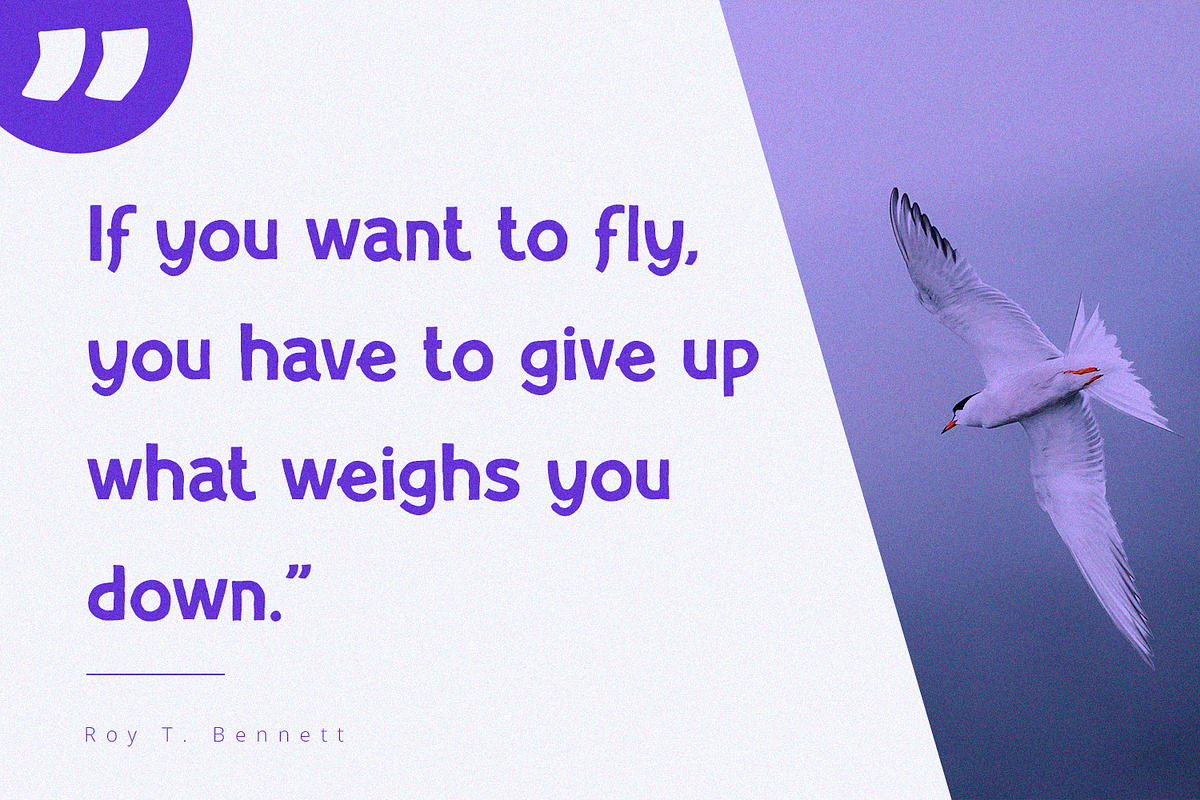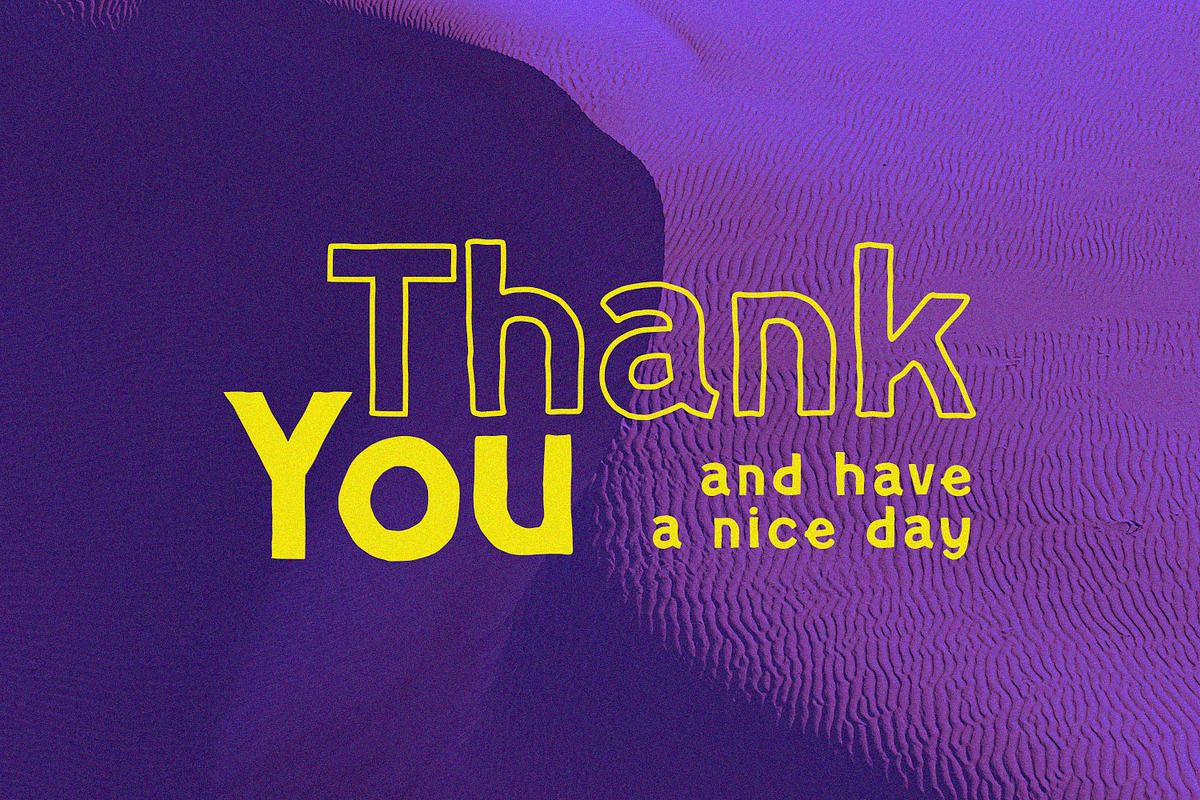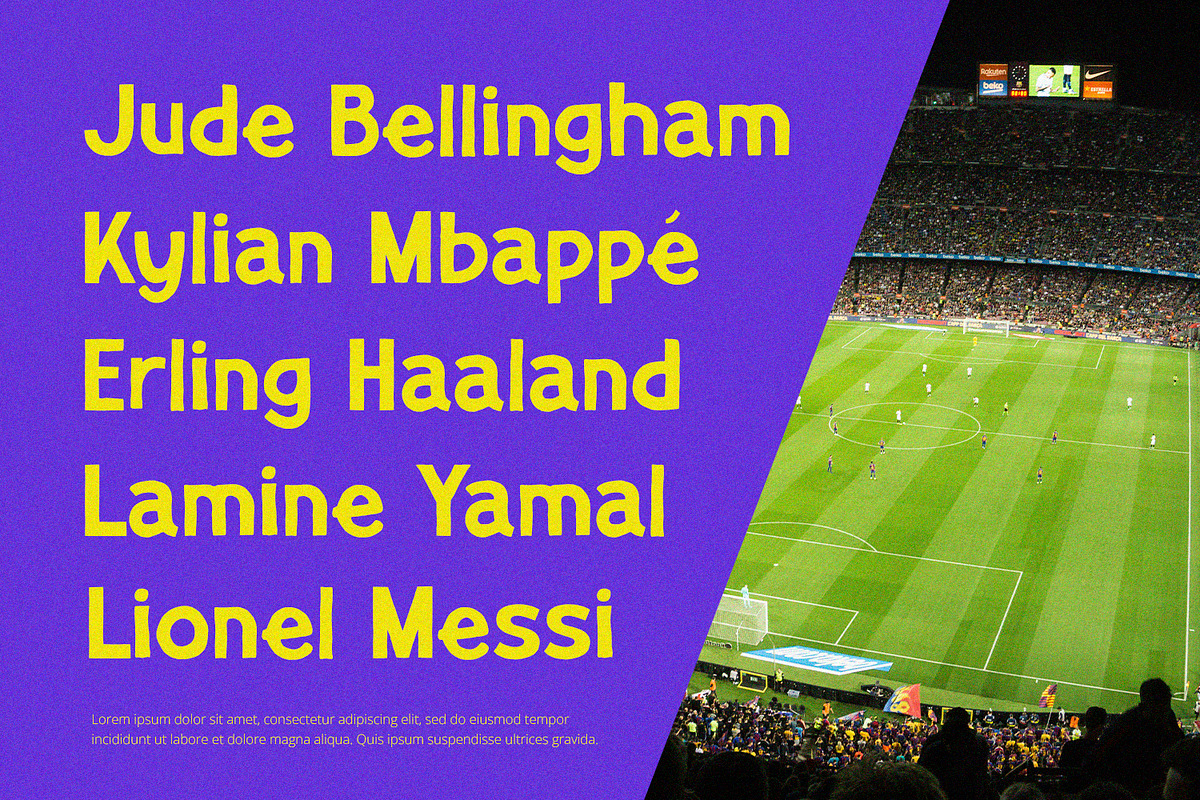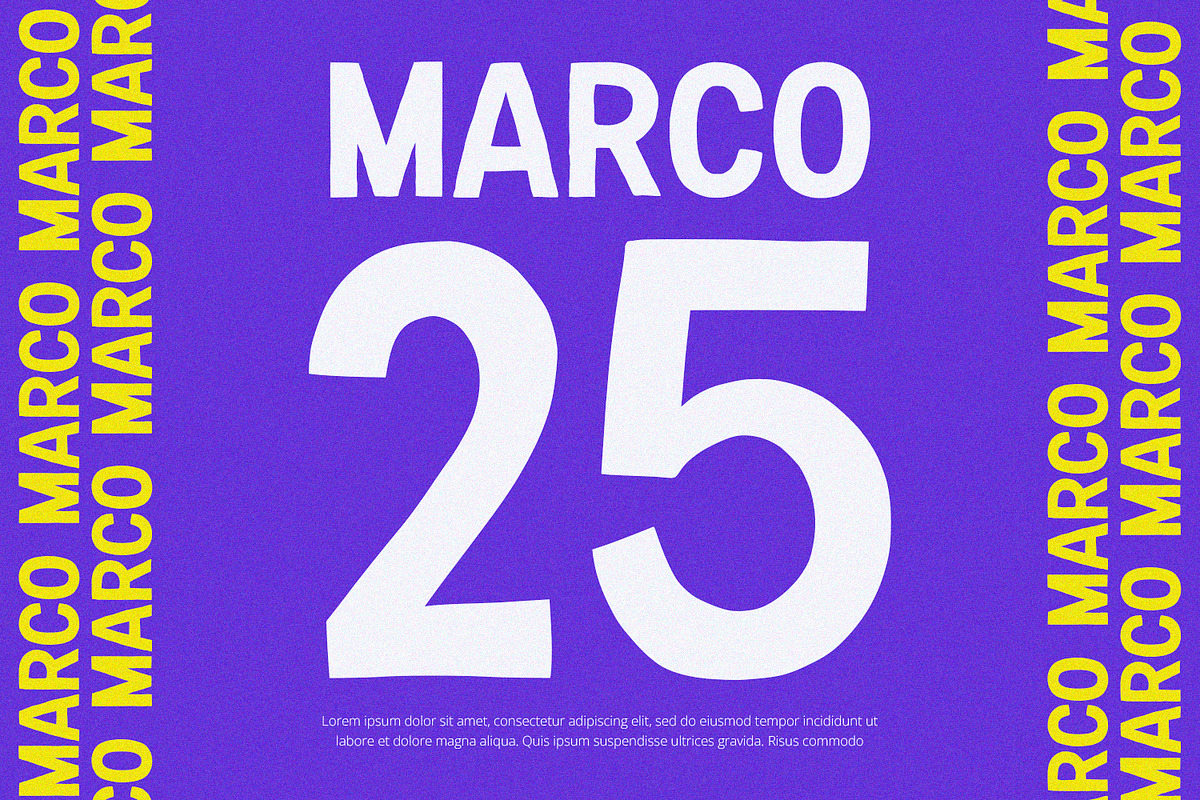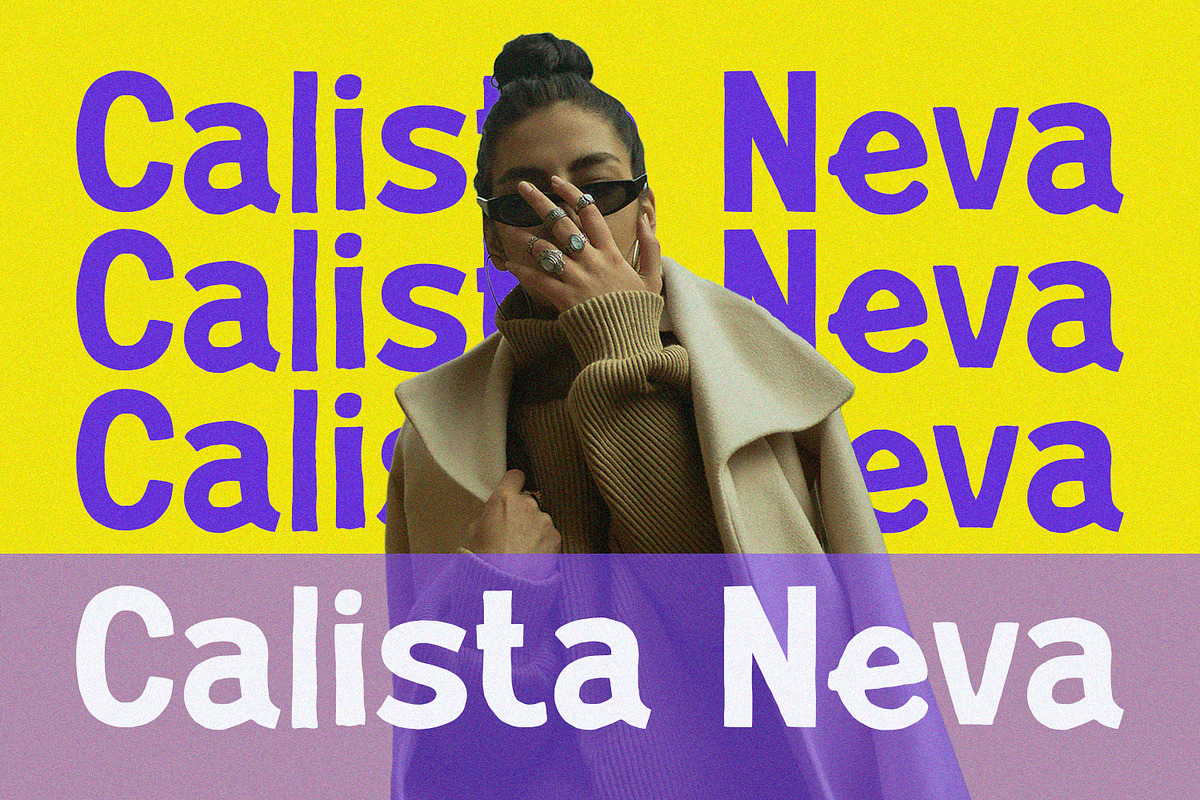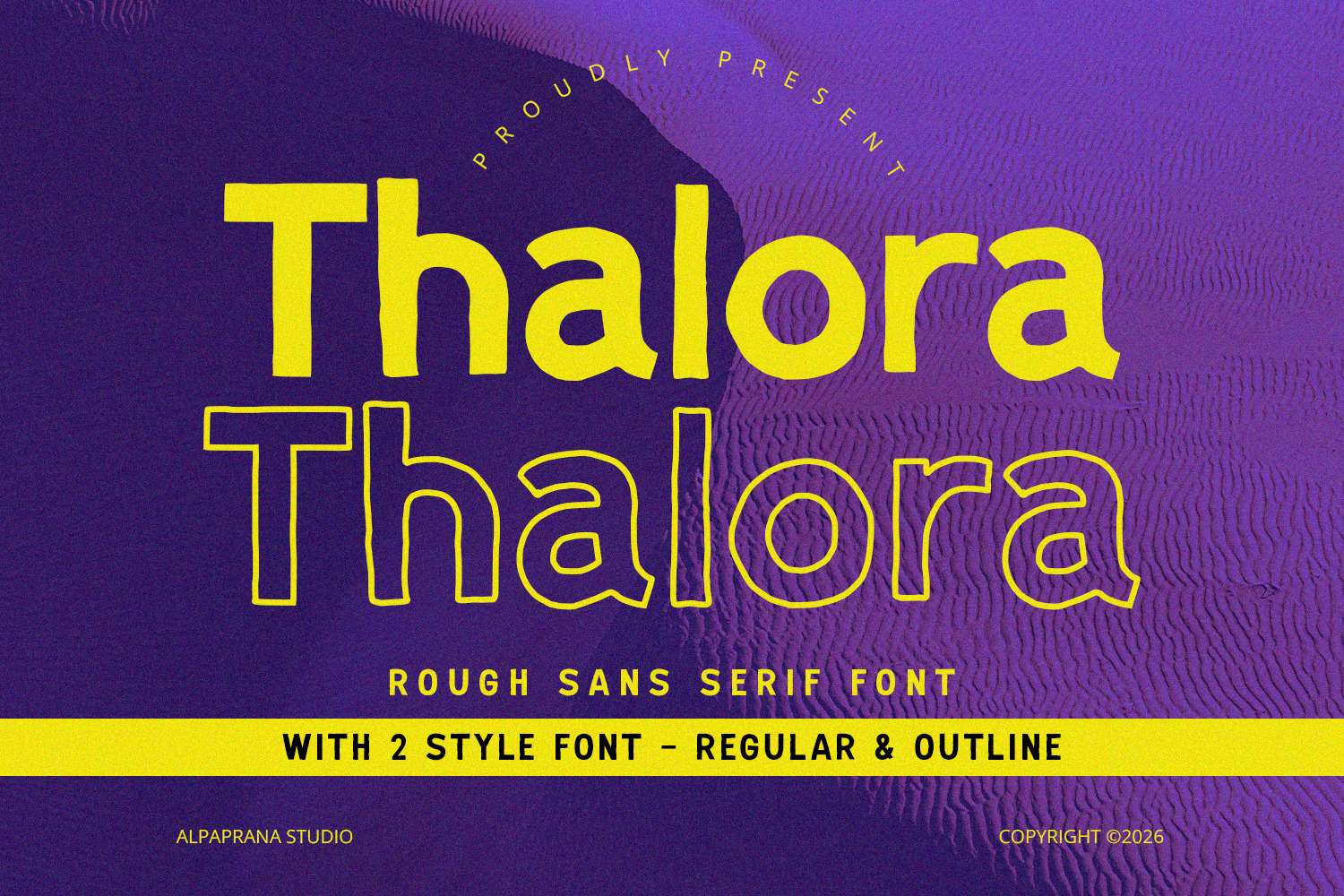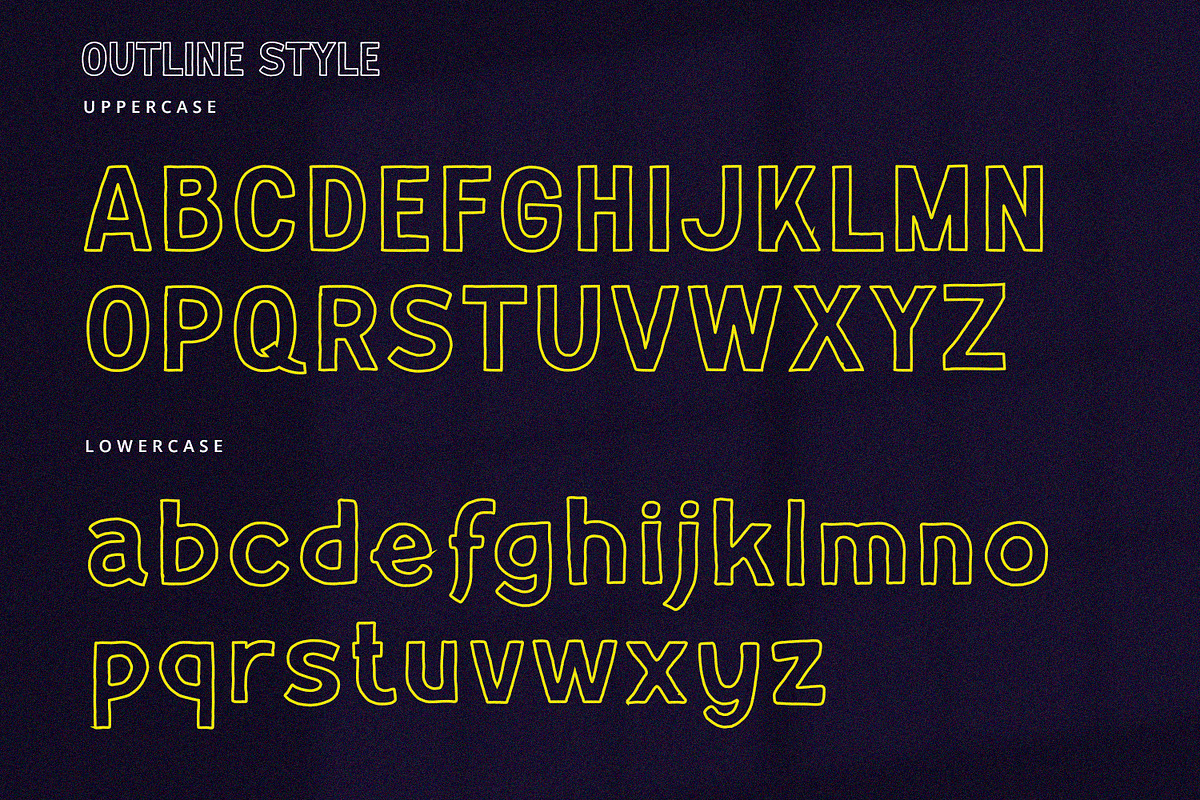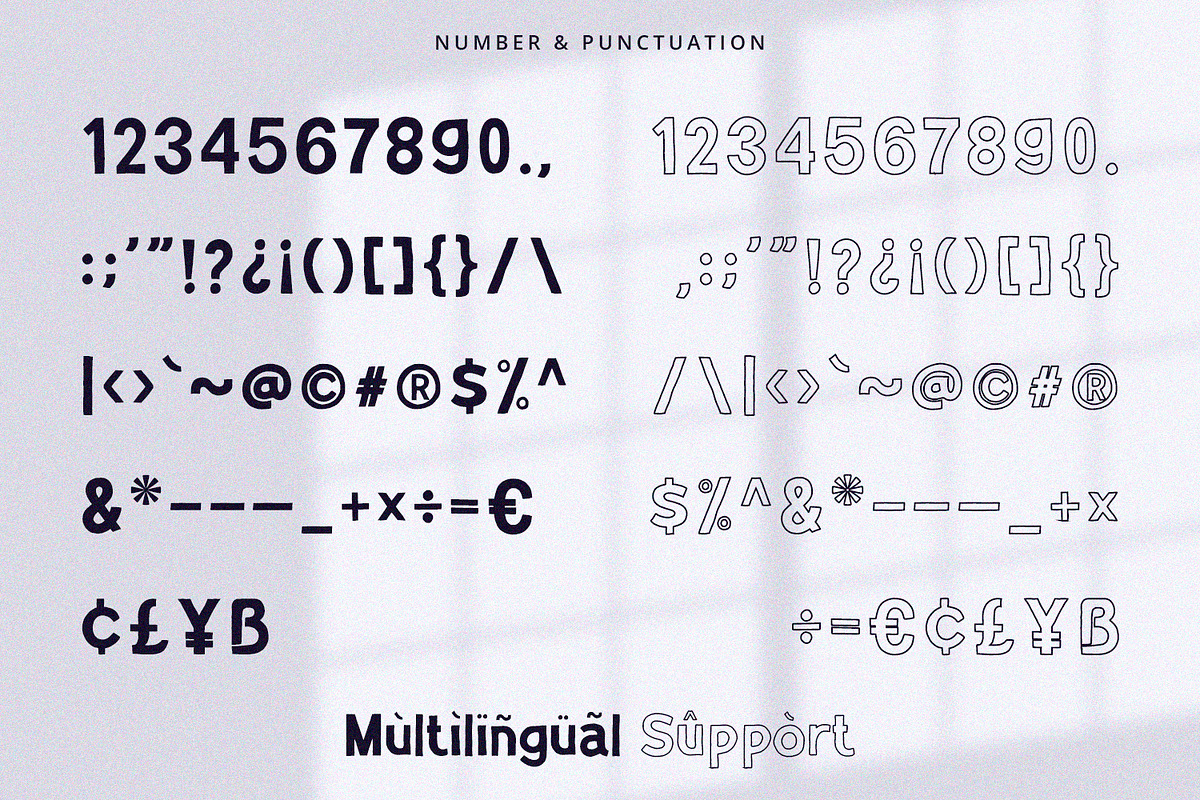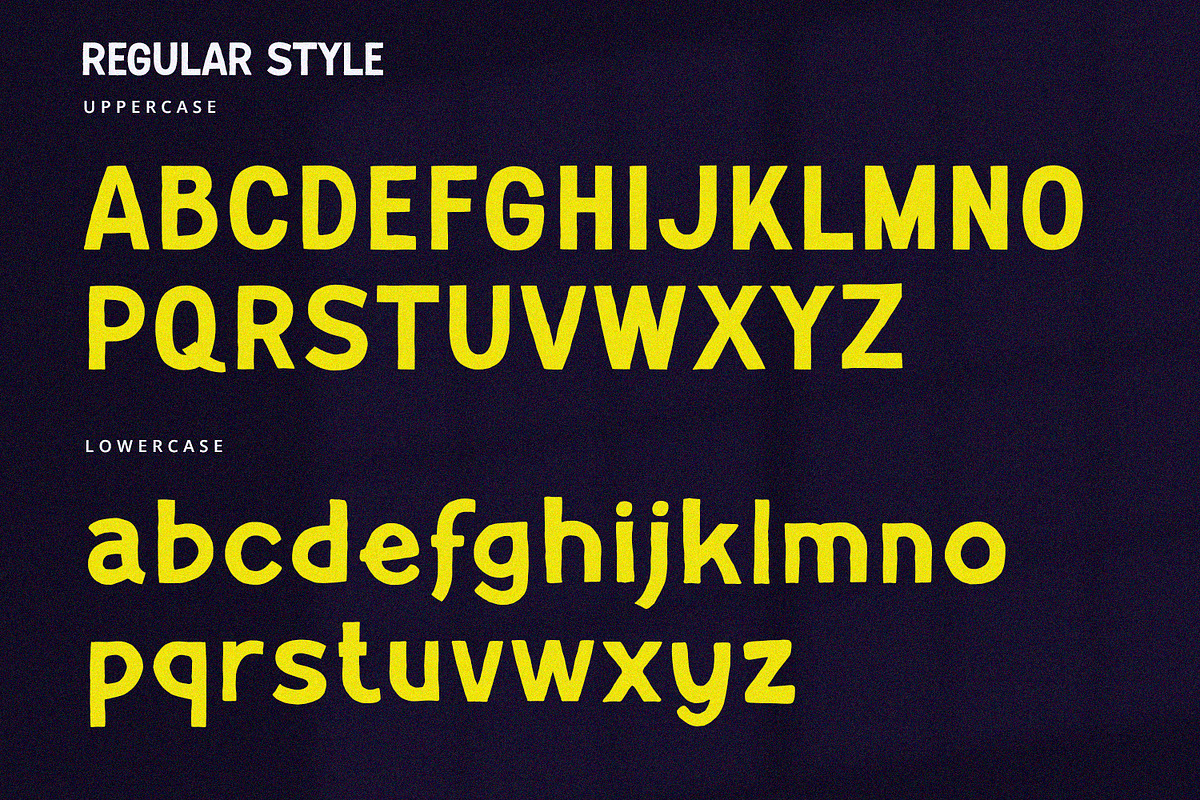
Thalora - Rough Font
Thalora is a rough sans serif font with modern feels. It will be perfectly used for Branding, Logo Design, Lettering, Logotype, Clothing, Poster, magazine, packaging, posters, shopping bags, t-shirts, book covers, photography, special events and other design project.